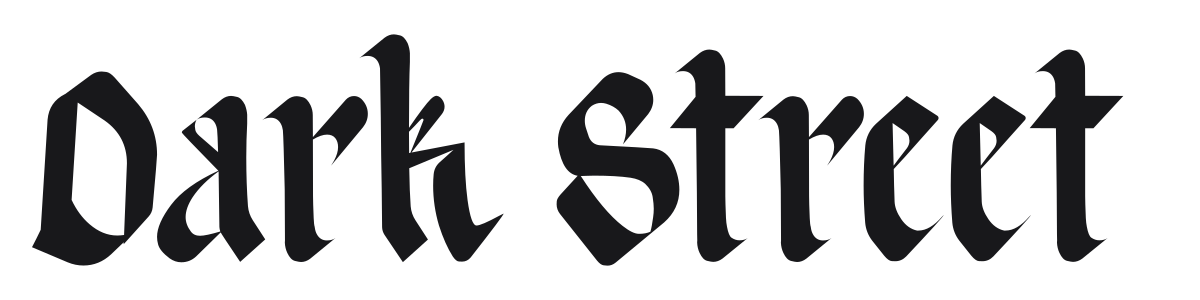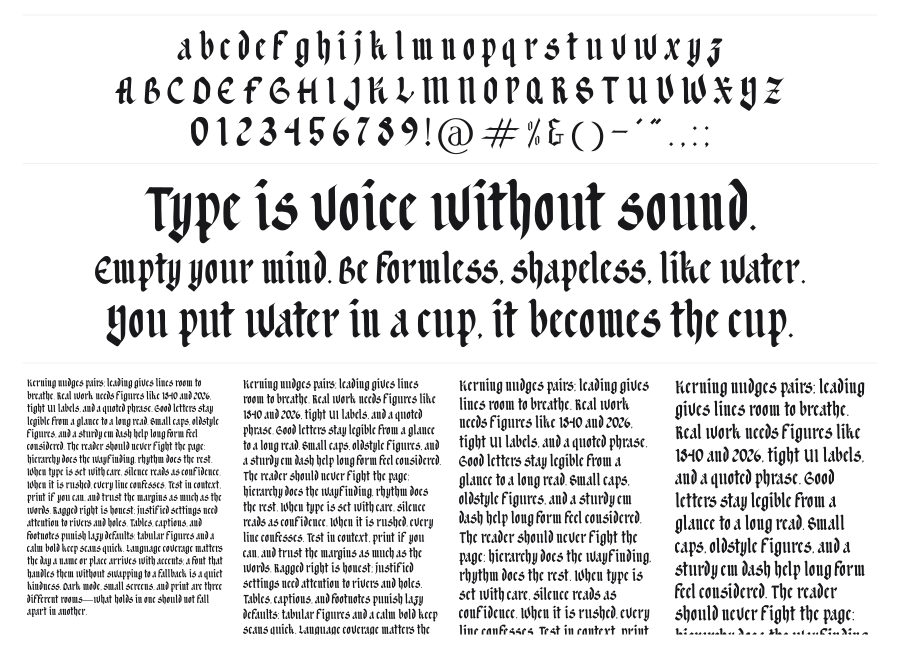
Dark Street
Dark Street is a heavy blackletter display font rooted in the Textura tradition with a distinctly modern, street-art attitude. Bold angular strokes, sharp diamond terminals, and dense lettering create a powerful gothic texture suited to headlines and identity work that needs serious weight. It bridges medieval calligraphy with contemporary metal and tattoo aesthetics.